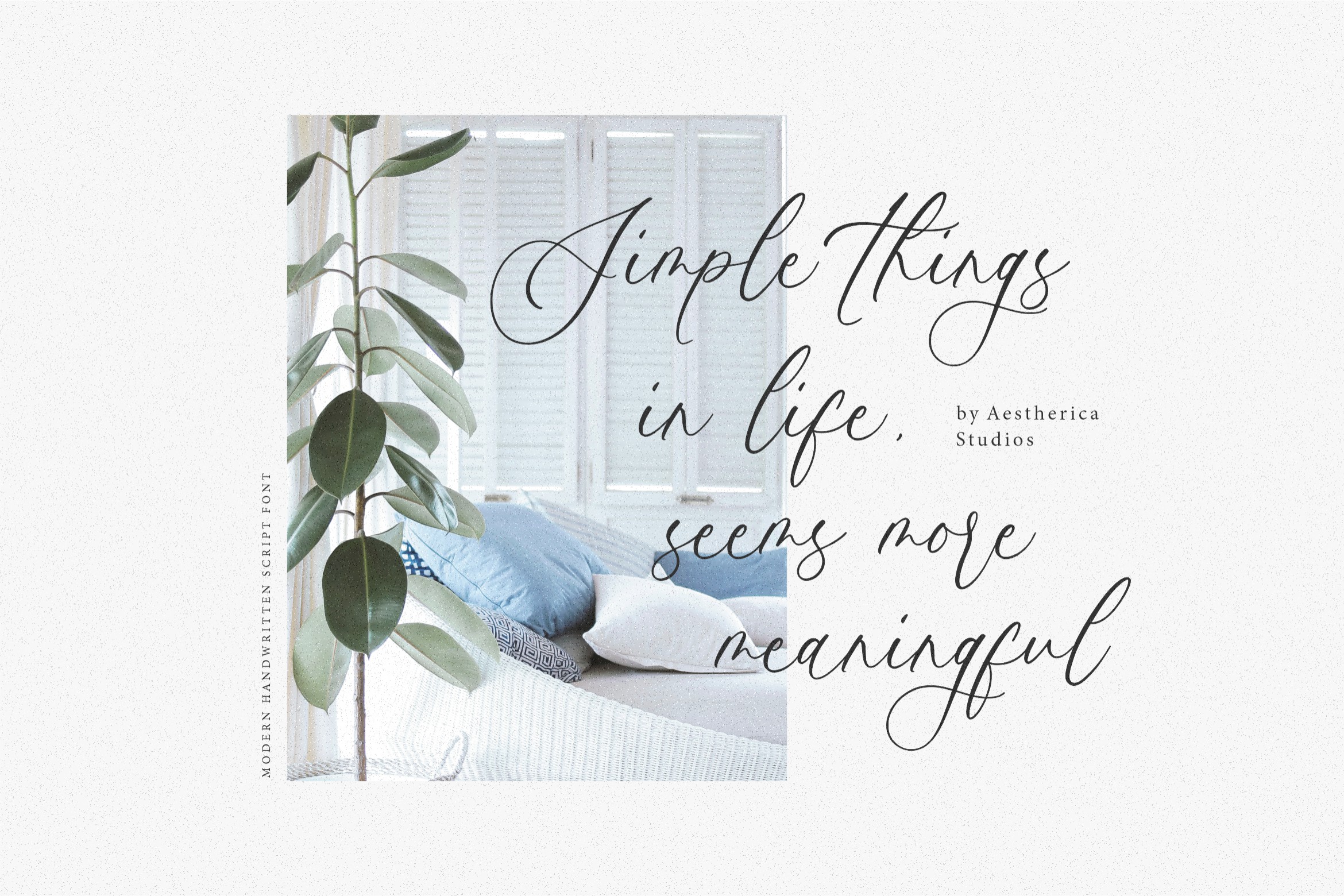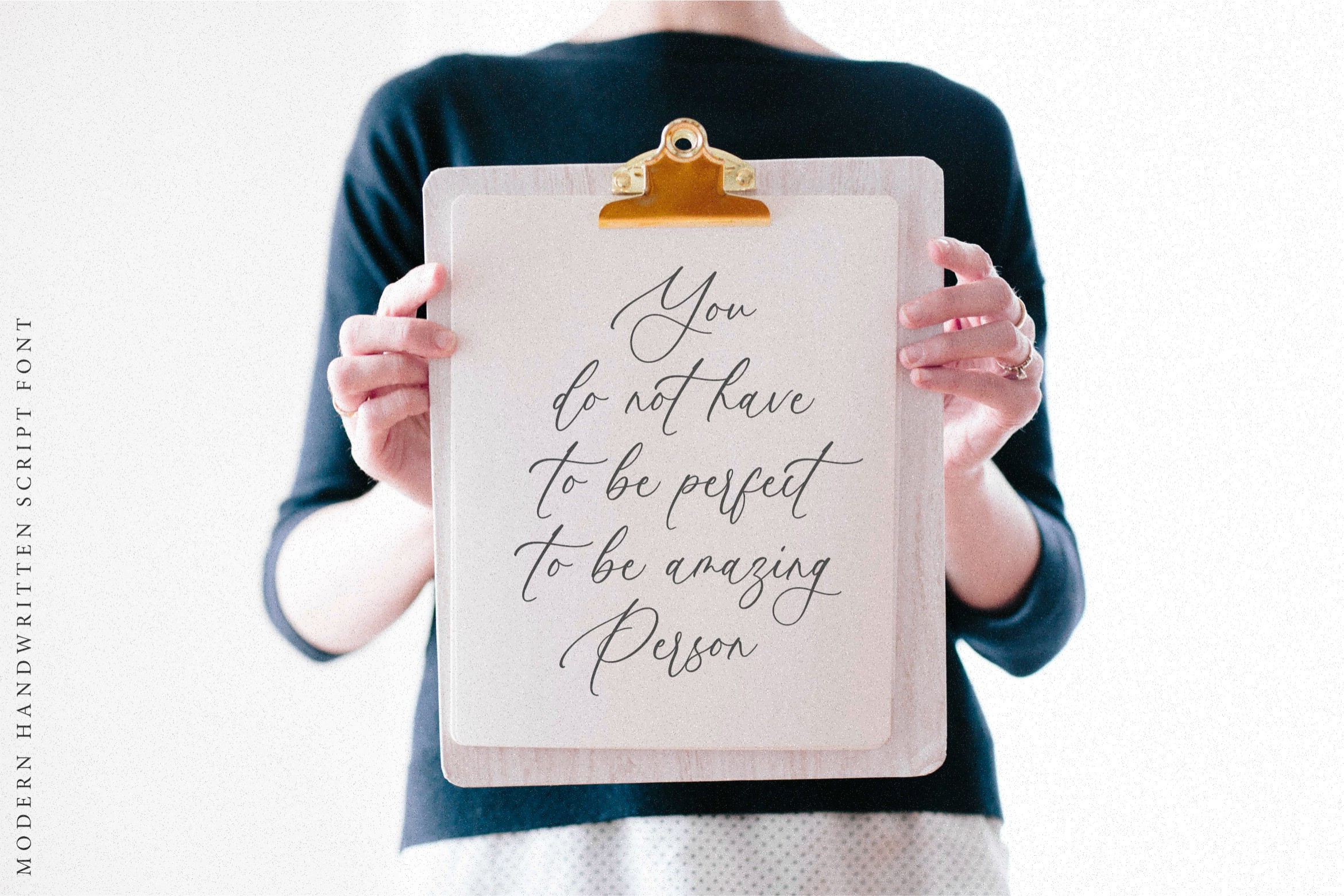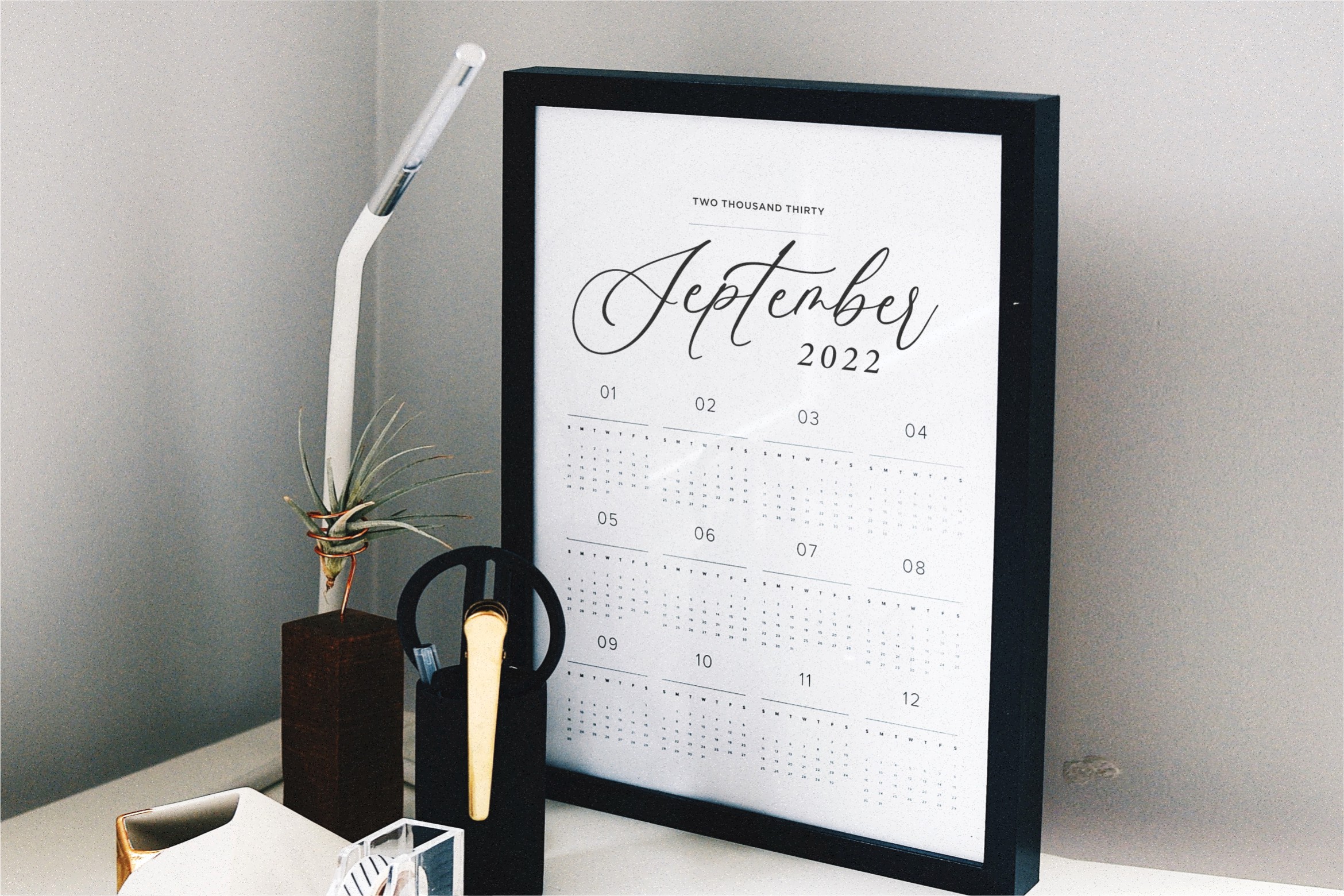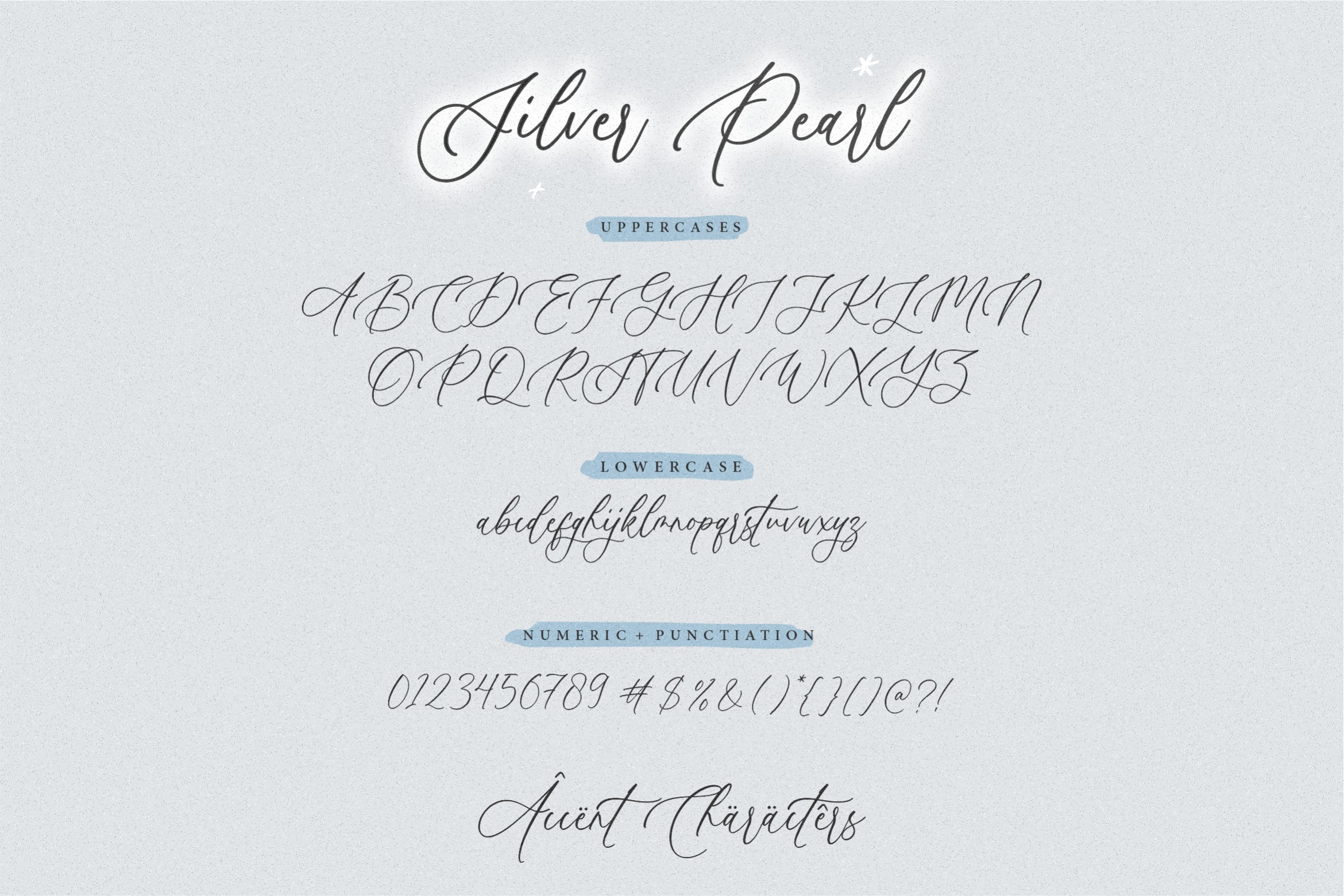
Silver Pearl Font
Silver Pearl Script Font is perfect for product packaging, branding project, megazine, social media, wedding, or just used to express words above the background.